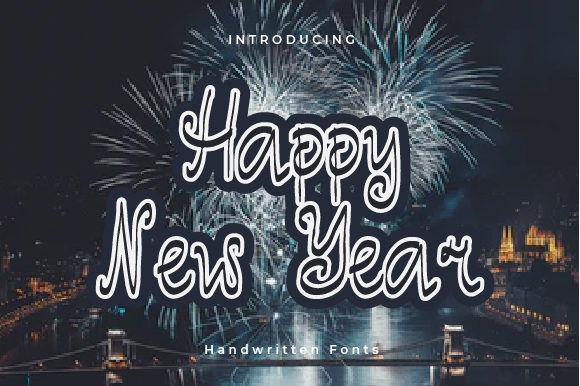
Happy New Year Font
About Happy New Year Font
Introducing Happy New Year: The Sweet and Delicate Handwritten Font
Welcome the new year with style and sweetness using Happy New Year, a font that exudes charm and delicacy in every letter. This handwritten gem is perfect for any creative endeavor, making it a versatile choice for logos, product packaging, invitations, quotes, t-shirts, labels, posters, and branding projects.
The delightful strokes of Happy New Year bring an air of playfulness and warmth to your designs. Its handwritten appeal adds a personal touch to every element, making your creations stand out with a unique and endearing allure.
Embrace the festive spirit as you create logos for your brand or packaging that leave a lasting impression. Happy New Year infuses your visual identity with a touch of joy, setting the stage for a memorable and prosperous year ahead.
As you craft invitations for special occasions or quotes that inspire, this font adds a sense of elegance and delight. Its versatility makes it a go-to choice for expressing emotions and setting the right mood for your projects.
Get creative with t-shirts and labels, as Happy New Year transforms your text into an art form. The font’s sweetness resonates with your audience, making your designs not just visually appealing but emotionally touching.
Envision posters that catch the eye and leave a lasting impact. Happy New Year’s delicate charm draws attention and invites viewers to explore the message behind the art.
With Happy New Year, branding your projects becomes a delightful journey. Its ability to adapt to various styles and themes makes it an essential tool in your creative arsenal.
So, whether you’re a seasoned designer or just starting, let Happy New Year be your trusted companion. Its sweet and delicate handwritten beauty will infuse your projects with a heartwarming touch, turning every creation into a true celebration of creativity and joy. Welcome the new year with Happy New Year and watch as your designs blossom with happiness and inspiration!